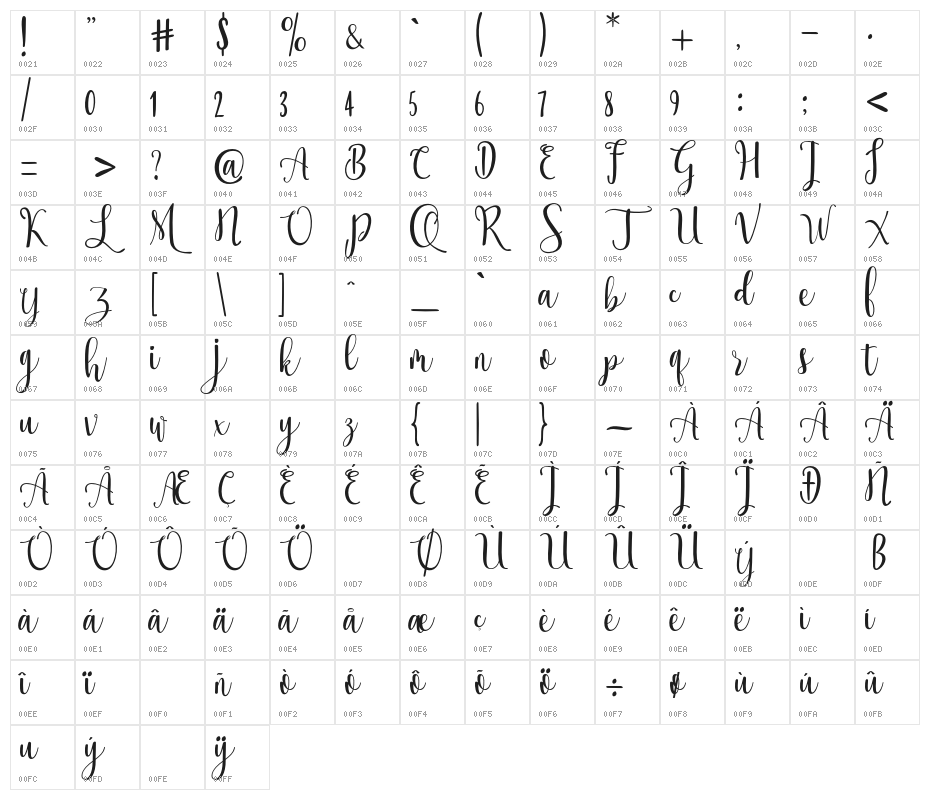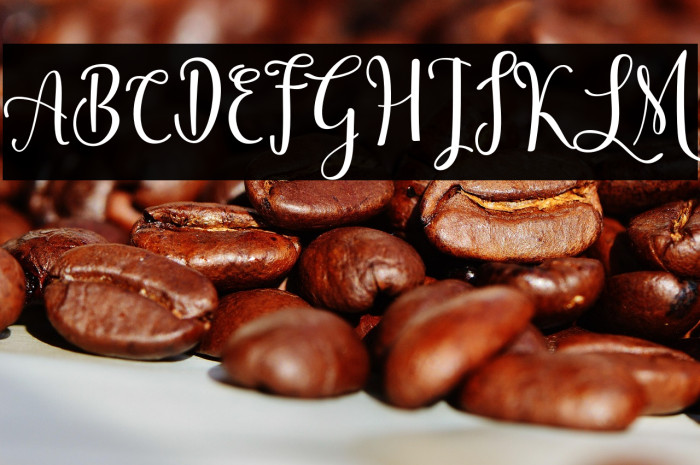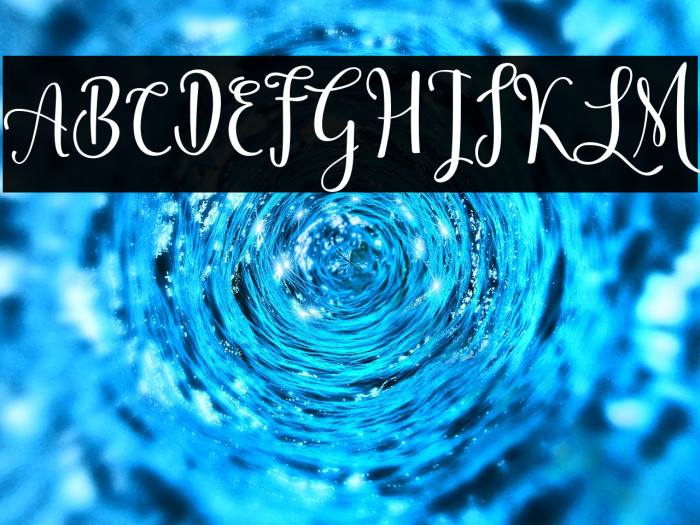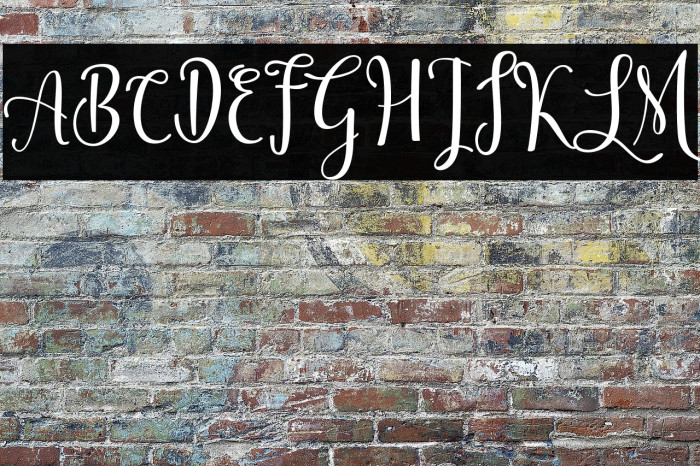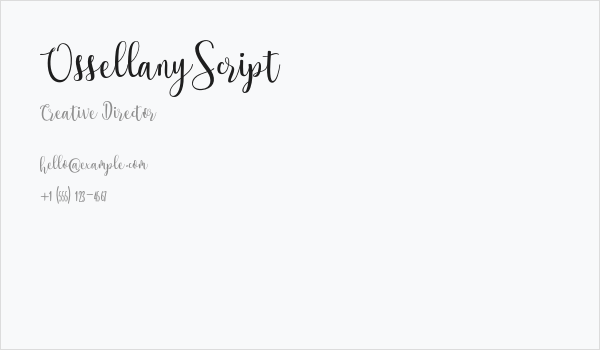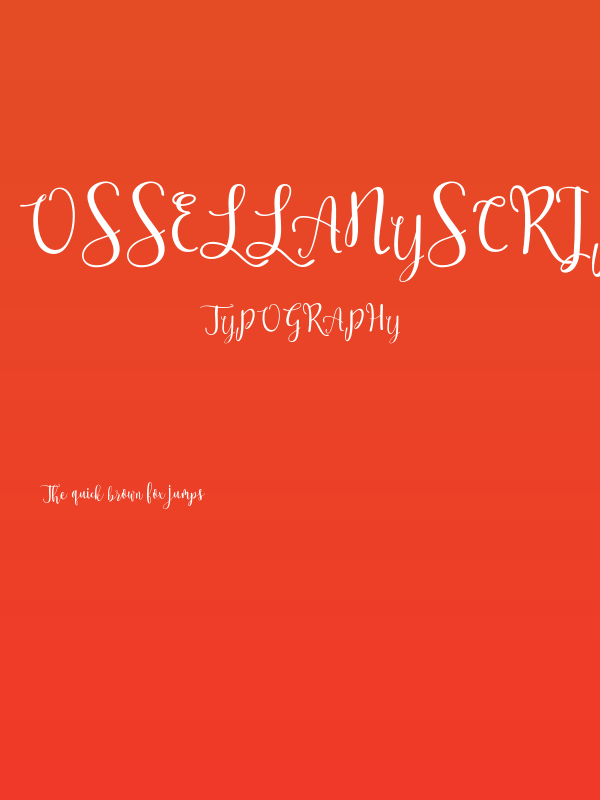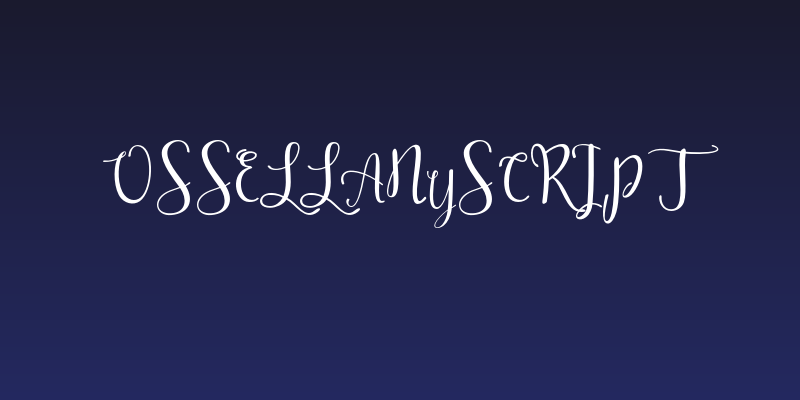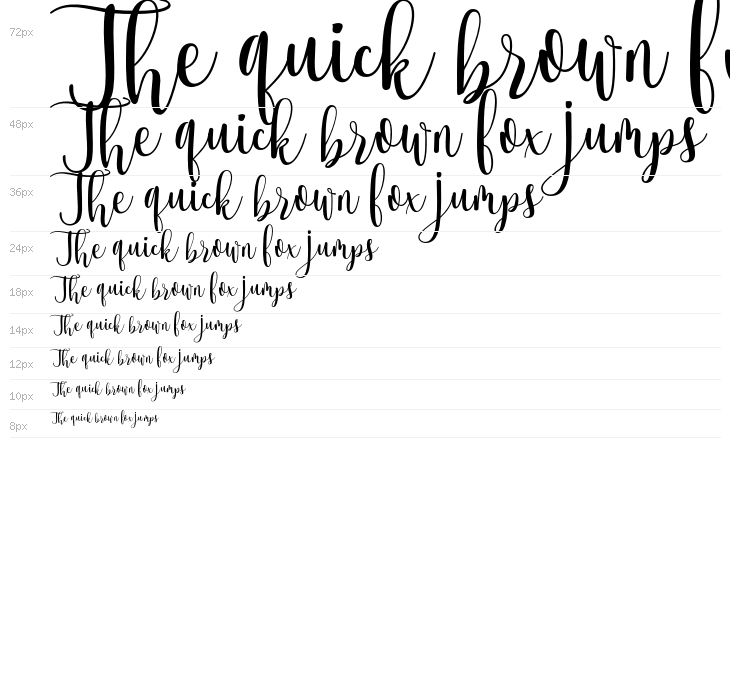
OssellanyScript Font
OssellanyScript Description
This font exhibits a lively and expressive script style, characterized by its flowing, cursive letterforms that convey a sense of elegance and creativity. The uppercase letters are bold and dynamic, with sweeping curves and loops that add a touch of sophistication. The lowercase letters maintain a consistent flow, with some characters featuring unique flourishes that enhance the overall aesthetic. The numerals are distinct and easy to read, complementing the alphabet with their slightly whimsical appearance. Special characters are thoughtfully designed to match the font's playful yet refined style, making it versatile for various design needs.
Use CaseLogos, Invitations, Greeting Cards
Proposed ProjectsIdeal for wedding invitations, greeting cards, branding projects, and any design that requires a touch of elegance and creativity.